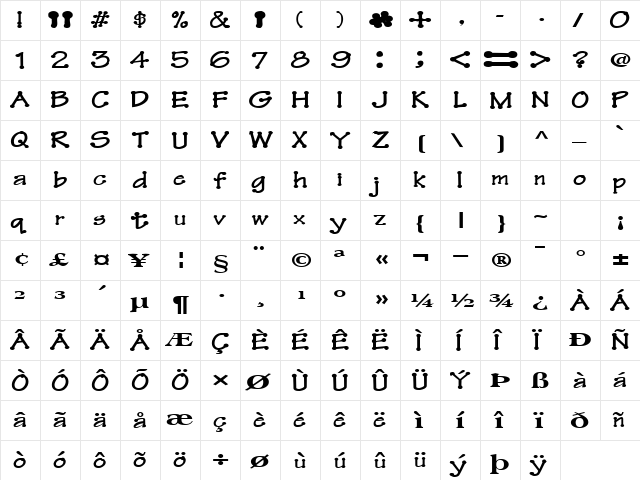
FeltPointNew35 Regular
FeltPointNew35 is a composed and adaptable typeface that performs quietly and consistently across a wide range of design contexts.